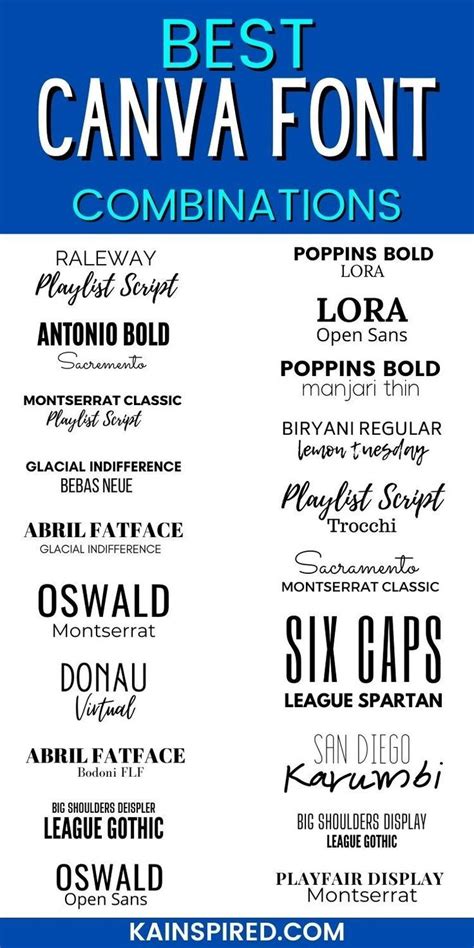
Canva Font Combos: The Best Pairs For Your Designs
Readers, have you ever struggled to find the perfect font combination for your Canva designs? It's a common design dilemma, and one that can make or break the visual impact of your work. You want fonts that look great together, convey the right message, and enhance the overall aesthetic of your project.
Don't worry! This is where the power of Canva font combos comes into play. As someone who has meticulously analyzed countless font pairings, I'm excited to share my insights and help you unlock the secrets to creating stunning visuals. Get ready to explore a world of font combinations and discover the perfect pairs for your next Canva masterpiece!
Understanding the Power of Canva Font Combos
The right font combo can elevate your designs to a whole new level. It's about creating a visual harmony that complements your content and captures your audience's attention. Here's why Canva font combos are so important:
1. Visual Appeal:
Font pairings play a critical role in how your designs look. A well-chosen combo creates visual interest and adds a touch of elegance to your work. Think of it as a dance between fonts – each one has a unique personality, and together they create something truly captivating.
2. Readability:
Choosing fonts that work well together is essential for ensuring your designs are easy to read. You want to select combos that have contrasting styles, but not so much that they clash or are difficult to decipher. Imagine a design where the different fonts create a visual cacophony – not a good look!
3. Brand Identity:
Font combos can help you establish a strong brand identity. Consistent usage of the same pairings across your visuals will make your brand more recognizable and memorable. Think of it as your brand's signature font style, and stick to it for a cohesive look and feel.
Key Factors for Choosing Canva Font Combos
Before diving into specific font combinations, let's explore some key factors to consider when choosing Canva font combos. These will guide your decision-making process and help you create pairings that work beautifully together.
1. Font Categories:
Fonts are broadly categorized into serif, sans-serif, and script. Serif fonts have small decorative strokes at the ends of letterforms, while sans-serif fonts lack these strokes. Script fonts mimic handwriting. Understanding these categories is crucial because they influence the overall aesthetic and tone of your designs.
2. Contrast:
Creating a harmonious contrast between your chosen fonts is essential. A good combo will feature fonts with different weights, widths, and styles. This contrast adds visual interest and keeps the design from becoming monotonous. Imagine a design with two very similar fonts – it wouldn't be very exciting!
3. Purpose:
Consider the purpose of your design when selecting font combos. For a fun and playful project, you might choose contrasting fonts. For a professional presentation, consider a more formal combination. Matching the font pairing to the design's purpose is crucial for achieving the desired effect.
4. Audience:
Who is your target audience? Their age, interests, and expectations will influence your font choices. For example, a design targeting a younger audience might use more playful and modern fonts, while a project aimed at a mature audience might call for more classic and sophisticated styles.
The Art of Combining Different Font Styles
Now that we've covered the key factors, let's explore the art of combining different font styles. This is where the magic happens, and you can truly unleash your creativity through the possibilities of font combos!
1. Mixing Serif and Sans-serif Fonts:
This is a classic combo that works well for a wide range of projects. The contrasting styles create visual interest, and the pairing often results in a clean and modern look. Consider using a serif font for headings and a sans-serif font for body text. Some popular combinations include:
- **Times New Roman** (serif) and **Arial** (sans-serif)
- **Garamond** (serif) and **Helvetica** (sans-serif)
- **Playfair Display** (serif) and **Open Sans** (sans-serif)
2. Script Fonts for a Touch of Elegance:
Script fonts, with their flowing letters, add a touch of elegance and sophistication to your designs. They work particularly well for invitations, wedding stationery, and other special occasions. Pair them with a sans-serif font for a balanced look. A few popular choices include:
- **Reenie Beanie** (script) and **Arial** (sans-serif)
- **Great Vibes** (script) and **Lato** (sans-serif)
- **Dancing Script** (script) and **Roboto** (sans-serif)
3. Bold and Dramatic Pairings:
If you're looking for a bolder and more dramatic look, consider combining fonts with contrasting weights. This creates a striking visual impact and adds a sense of excitement to your designs. Try pairing a bold sans-serif font with a lighter serif font. Some popular options include: